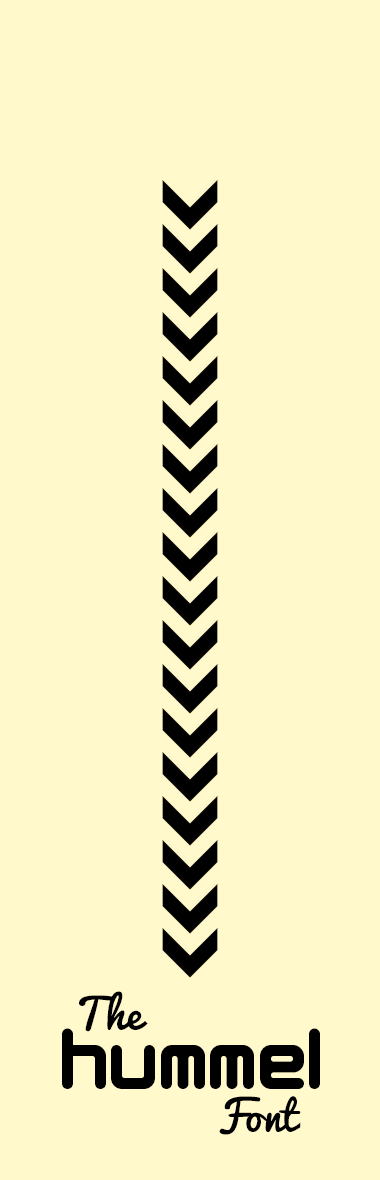
The Hummel Font
It's not really the Hummel logo font, it's a bit lighter (but who cares?). It also includes the Hummel scroll that appears on their clothes and shoes.
a good design, especially based on so few letters. 10/10